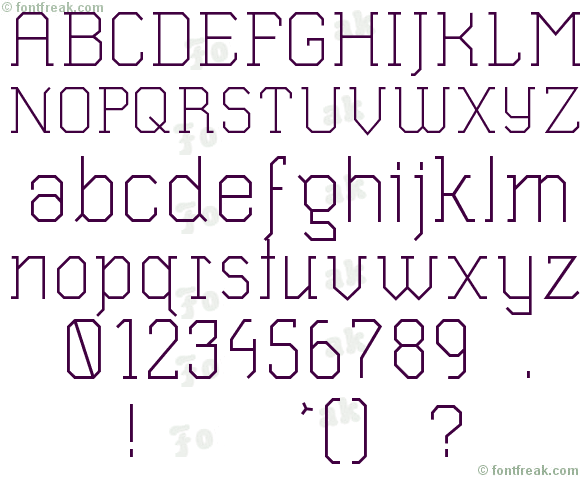
Wombat Light
About Wombat Light
Wombat Light, crafted by Lukas Bischoff, is a striking sans-serif font that embodies a modern and minimalist aesthetic. This font stands out with its clean lines and uniform stroke weight, making it an excellent choice for various design applications. The visual characteristics of Wombat Light include a subtle contrast that adds a touch of sophistication, paired with generous spacing that enhances readability. The simplicity of its design allows it to maintain clarity even at smaller sizes, making it versatile for both digital and print mediums.
This font is particularly well-suited for a range of use cases. It shines in wedding invitations, where its elegant yet approachable style can set the tone for a special day. Additionally, Wombat Light is perfect for movie posters, providing a contemporary feel that captures attention without overwhelming the viewer. Restaurant menus can benefit from its clean appearance, ensuring that dish names and descriptions are easy to read. It's also an excellent choice for corporate branding materials, where professionalism and clarity are paramount. Lastly, content creators can use this font in blogs and social media graphics to create a cohesive and stylish visual identity.
What truly sets Wombat Light apart is its balance of simplicity and elegance. This font not only enhances visual communication but also resonates with audiences, making it a go-to choice for anyone seeking a refined yet approachable typeface. For those interested, the Wombat Light font free download is available, allowing you to incorporate this exceptional font into your projects seamlessly.